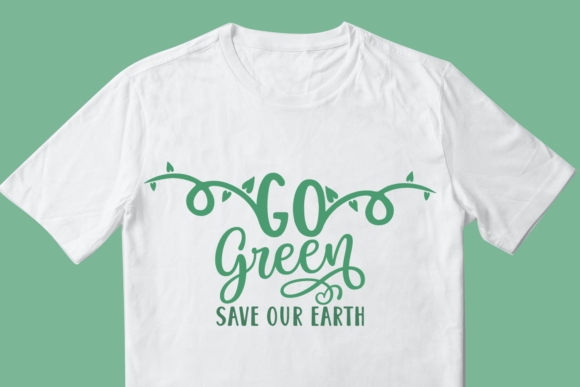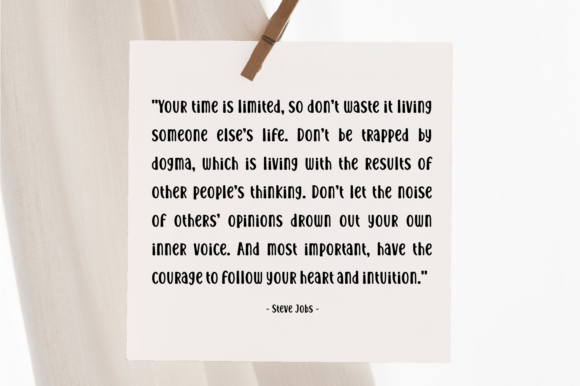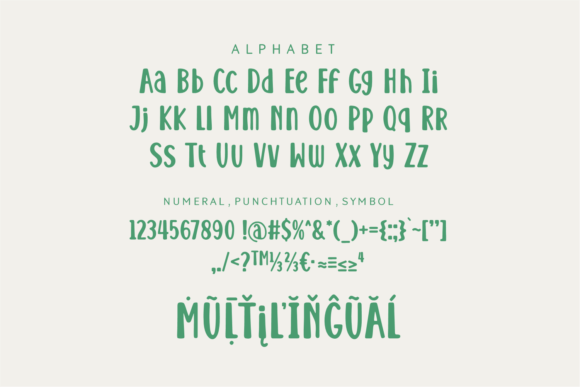
Introduction to Ramoean Font
As designers, we’ve all been there – staring at a blank page, trying to bring a creative project to life. The perfect font can make all the difference. For me, that moment came when I stumbled upon the Ramoean Font. Its unique blend of sophistication and modernity had me hooked from the start. With its smooth and flowing strokes, it added a touch of elegance to my design, while its bold and sharp angles gave it a much-needed edge.
But what really sets the Ramoean Font apart is its versatility. Whether you’re working on a high-end branding project or creating packaging for a new product, this font is sure to impress. And with its PUA encoding, you can access all the delightful glyphs and swashes effortlessly, making it a valuable resource for any designer.
Key Features of Ramoean Font
- Transparent background and customizable design options
- Unique, artistic font perfect for adding a touch of elegance to any design
Honest Review: Ramoean Font
I recently stumbled upon the Ramoean Font, and I must say it’s a great addition to any designer’s arsenal. The high-quality font is perfect for creative projects that require a unique touch.
One of the standout features of the Ramoean Font is its versatility. You can use it for a variety of design projects, from logos to posters, and it will always look great. The font is available for free download, which is a definite plus.
- ✨ Versatile font that can be used for a variety of design projects
- Limitations:
- ⚠️ Limited character set, which may not be ideal for longer texts
Overall, I’m really impressed with the Ramoean Font. It’s a great design resource that’s perfect for anyone looking to add a unique touch to their creative project. The transparent background is a nice touch, making it easy to use in a variety of design scenarios.
My only suggestion would be to expand the character set to make it more suitable for longer texts. However, for most design projects, the Ramoean Font is a great choice.
The Ramoean Font is suitable for various design projects, including logos, brochures, business cards, and presentations. It is also ideal for creating custom graphics and designs with a transparent background. Use the font to add a touch of elegance and sophistication to your creative project.